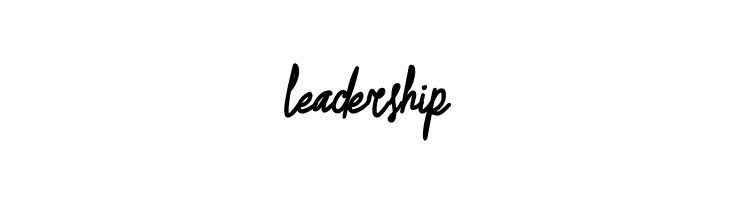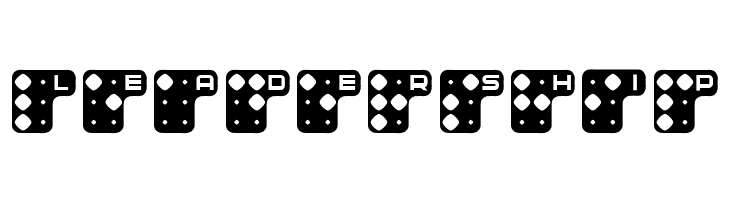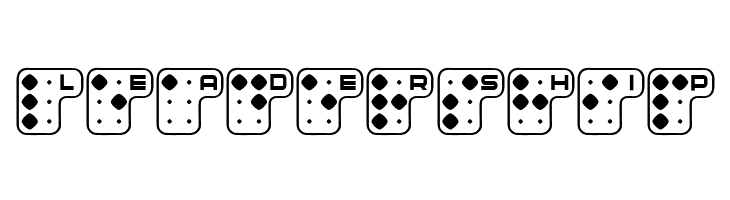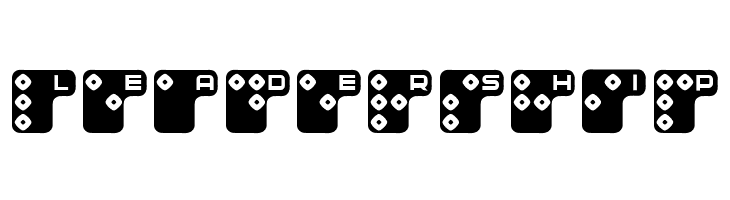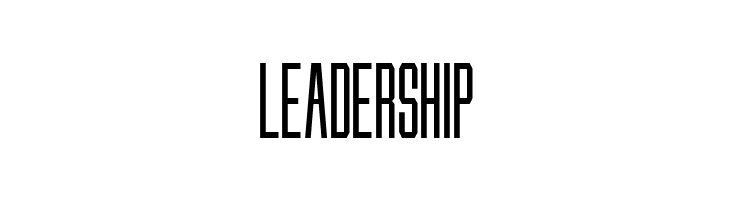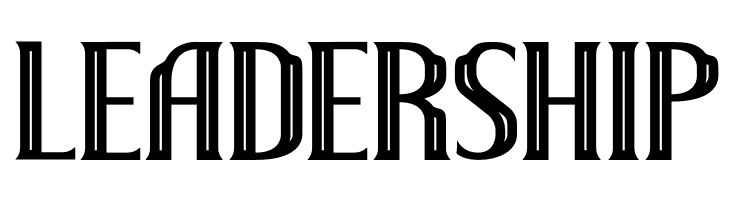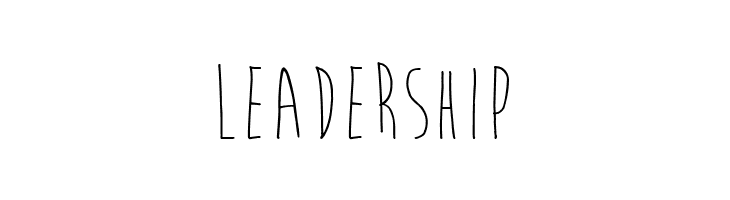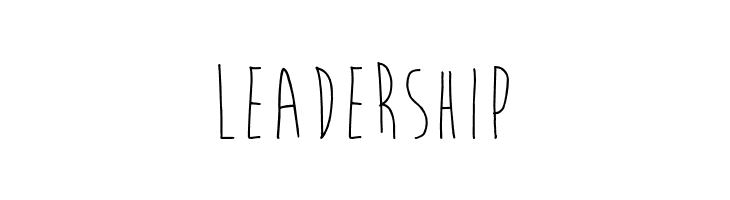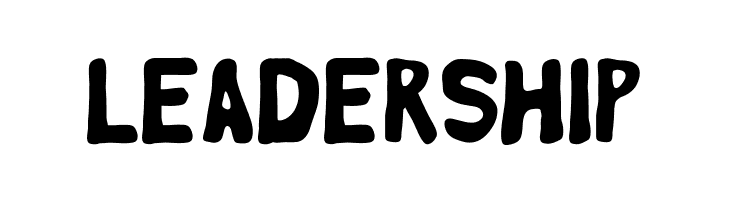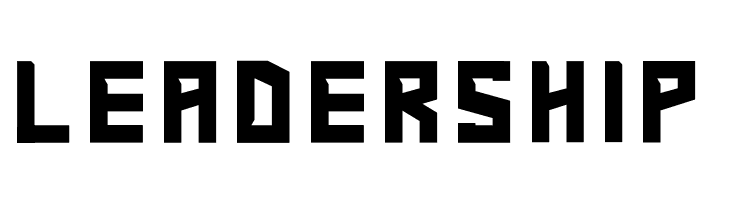
( Fonts by Vladimir Nikolic - www.creativefabrica.com/designer/vladimirnikolic/ - Personal-use only. For commercial use please contact owner. ) A visually styled Braille font with rounded rectangles and consistent dot patterns. Download 36 Downloads@WebFont
( Fonts by Vladimir Nikolic - www.creativefabrica.com/designer/vladimirnikolic/ - Personal-use only. For commercial use please contact owner. ) A visually striking font that combines Braille dots with a bold, modern design. Download 31 Downloads@WebFont
( Fonts by Vladimir Nikolic - www.creativefabrica.com/designer/vladimirnikolic/ - Personal-use only. For commercial use please contact owner. ) A modern, Braille-inspired font with a playful and innovative design. Download 28 Downloads@WebFont
( Fonts by Vladimir Nikolic - www.creativefabrica.com/designer/vladimirnikolic/ - Personal-use only. For commercial use please contact owner. ) A modern, bold font inspired by the Braille system, featuring distinct dot patterns within rectangular shapes. Download 26 Downloads@WebFont
( Fonts by Vladimir Nikolic - www.creativefabrica.com/designer/vladimirnikolic/ - Personal-use only. For commercial use please contact owner. ) A visually Braille-inspired font with rounded shapes and dot patterns. Download 21 Downloads@WebFont
( Fonts by Vladimir Nikolic - www.creativefabrica.com/designer/vladimirnikolic/ - Personal-use only. For commercial use please contact owner. ) A bold, Braille-inspired font with high contrast and unique dot patterns. Download 28 Downloads@WebFont
( Fonts by nomlimofont - Personal-use only. For commercial use please contact owner. ) A bold, brush-style font with a dynamic and edgy appearance. Download 127 Downloads@WebFont
( Fonts by Ole Neumann - Personal-use only. For commercial use please contact owner. ) A bold, fragmented font with a shattered glass effect, featuring angular and irregular shapes. Download 33 Downloads@WebFont
( Fonts by Denne - Denise Bentulan - Personal-use only. For commercial use please contact owner. ) A playful, handwritten font with tall, narrow characters and a whimsical style. Download 111 Downloads@WebFont
( Fonts by Denise Bentulan - douxiegirl.com. Personal-use only. For commercial use please contact owner. ) A tall, narrow handwritten font with a clean, minimalist style. Download 2485 Downloads@WebFont
( Fonts by Faqih Fawaji - Personal-use only. For commercial use please contact owner. ) A bold, playful font with a hand-drawn, melted appearance. Download 56 Downloads@WebFont
( Fonts by Vladimir Nikolic - Personal-use only. For commercial use please contact owner. ) A bold, geometric font with a modern, industrial style. Download 403 Downloads@WebFont
( Fonts by Wino S Kadir - weknow - www.revolge.com/shop/weknow/ - Personal-use only. For commercial use please contact owner. ) A bold, gothic-inspired font with sharp, angular edges and a dramatic flair. Download 60 Downloads@WebFont
( Fonts by weknow - Wino S Kadir - Personal-use only. For commercial use please contact owner. ) A bold, dynamic font with sharp, angular edges and a calligraphic flair. Download 29 Downloads@WebFont
( Fonts by weknow - Wino S Kadir - Personal-use only. For commercial use please contact owner. ) A bold, italicized font with dynamic, artistic strokes and a striking appearance. Download 45 Downloads@WebFont
( Fonts by weknow - Wino S Kadir - Personal-use only. For commercial use please contact owner. ) A bold, dynamic font with sharp, angular edges and an italicized style. Download 34 Downloads@WebFont
( Fonts by weknow - Wino S Kadir - Personal-use only. For commercial use please contact owner. ) A bold, dynamic font with sharp, angular edges and a graffiti-like aesthetic. Download 33 Downloads@WebFont
( Fonts by Mans Greback - www.mansgreback.com - Personal-use only. For commercial use please contact owner. ) A playful, casual handwritten font with smooth, flowing lines. Download 32 Downloads@WebFont
( Fonts by Andri Pratama Nugraha - Personal-use only. For commercial use please contact owner. ) A tall, narrow, and modern font with sharp edges and geometric shapes. Download 38 Downloads@WebFont
( Fonts by Manjali Studio - Personal-use only. For commercial use please contact owner. ) A playful and flowing script font with smooth, connected strokes. Download 44 Downloads@WebFont
( dcoxy - Greg Medina - www.dcoxy.com/ ) A bold, outlined font with a playful and cartoonish style. Download 101 Downloads@WebFont
( Fonts by dcoxy - Greg Medina - Personal-use only. For commercial use please contact owner. ) A playful, bold font with a hand-drawn, cartoonish style and thick outlines. Download 28 Downloads@WebFont
( dcoxy - Greg Medina - www.dcoxy.com/ ) A playful, bold, hand-drawn font with a whimsical style. Download 211 Downloads@WebFont
( Fonts by Denne - Denise Bentulan - Personal-use only. For commercial use please contact owner. ) A playful, handwritten font with thin, narrow strokes and a whimsical style. Download 86 Downloads@WebFont
( Fonts by Hamlana Type - Personal-use only. For commercial use please contact owner. ) A bold, geometric font with sharp angles and a futuristic style. Download 21 Downloads@WebFont
( Fonts by Mozyen Studio - Personal-use only. For commercial use please contact owner. ) A playful, dynamic handwritten font with fluid strokes and a casual style. Download 53 Downloads@WebFont
( Fonts by www.junkohanhero.com - Personal-use only. For commercial use please contact owner. ) A bold, brush-style font with an expressive and dynamic appearance. Download 192 Downloads@WebFont